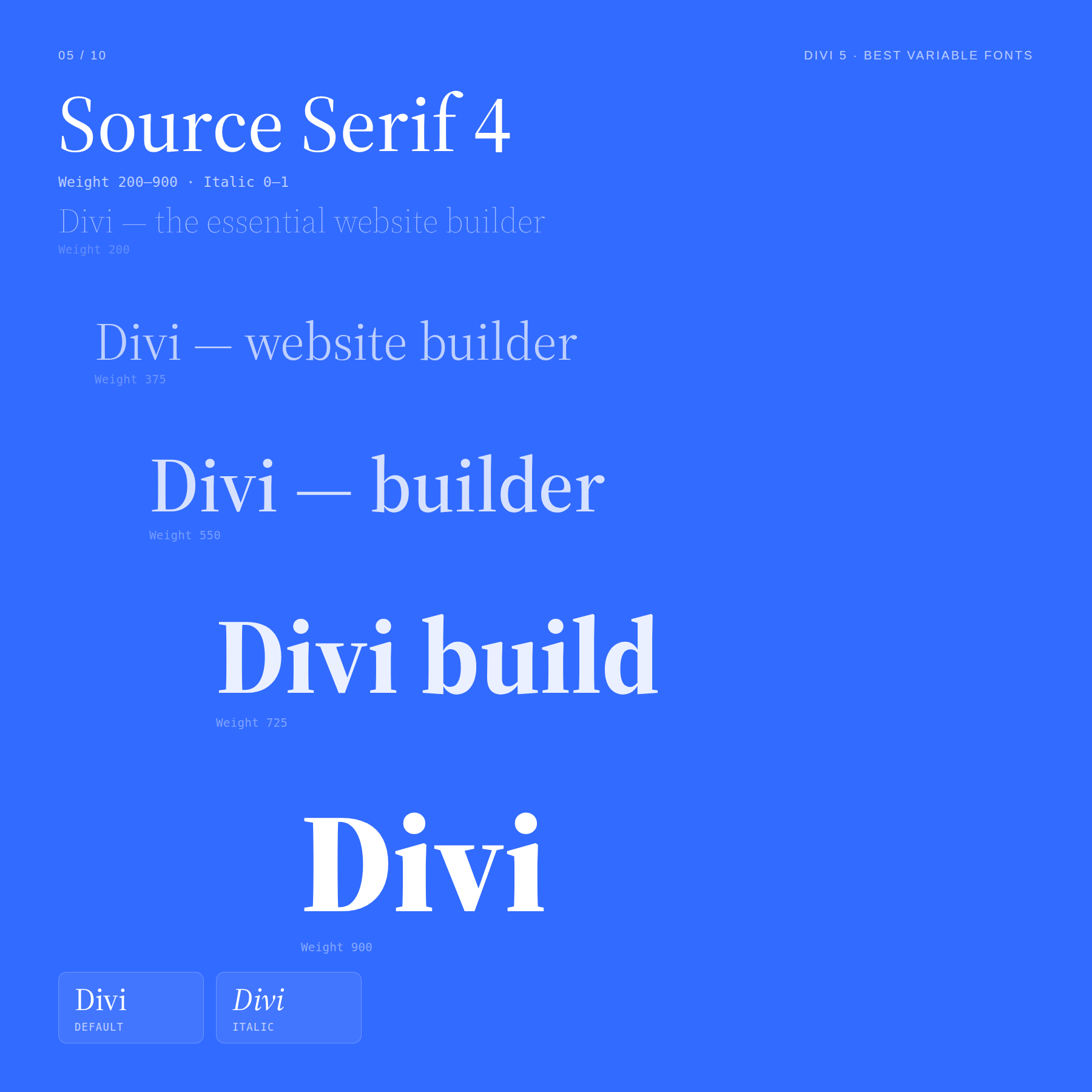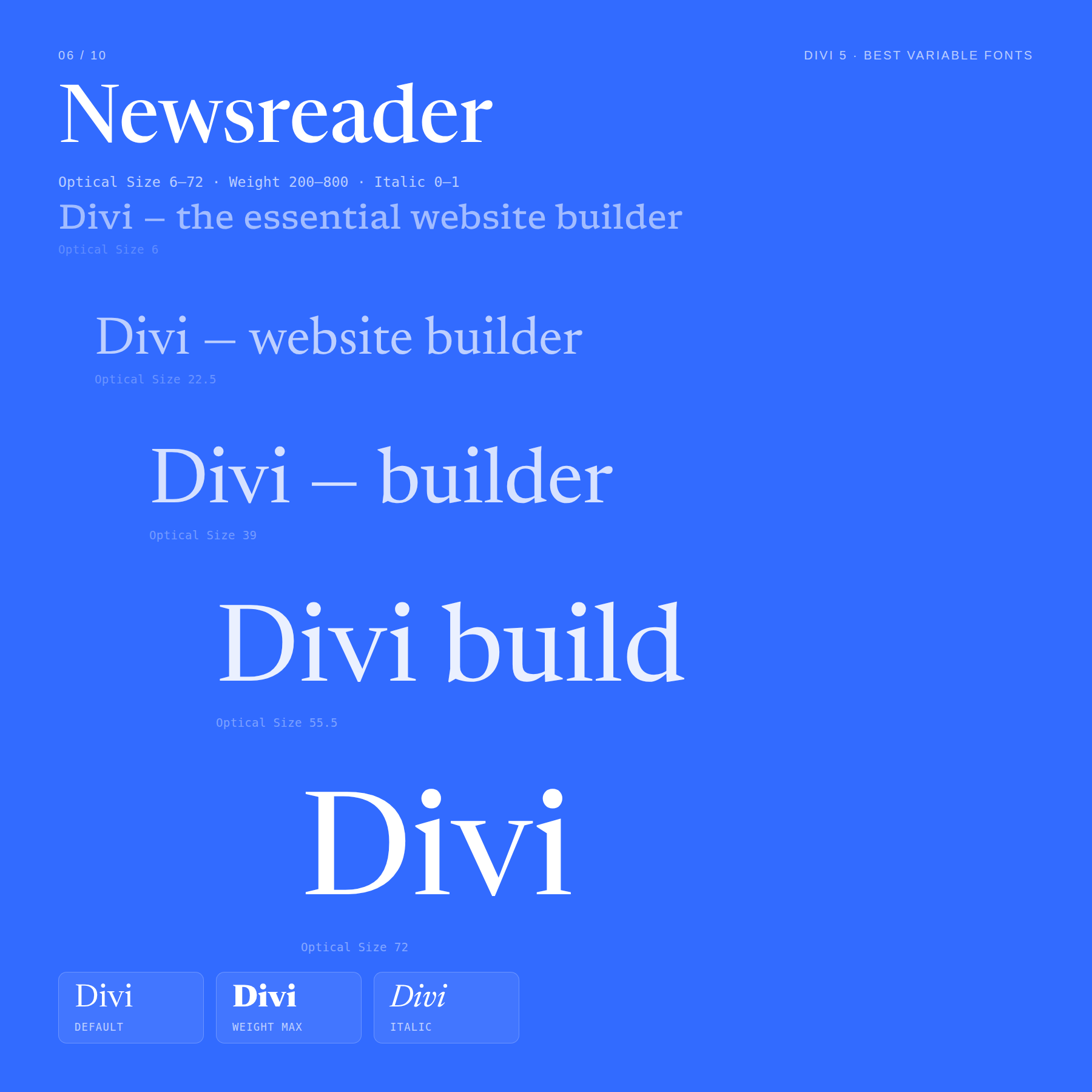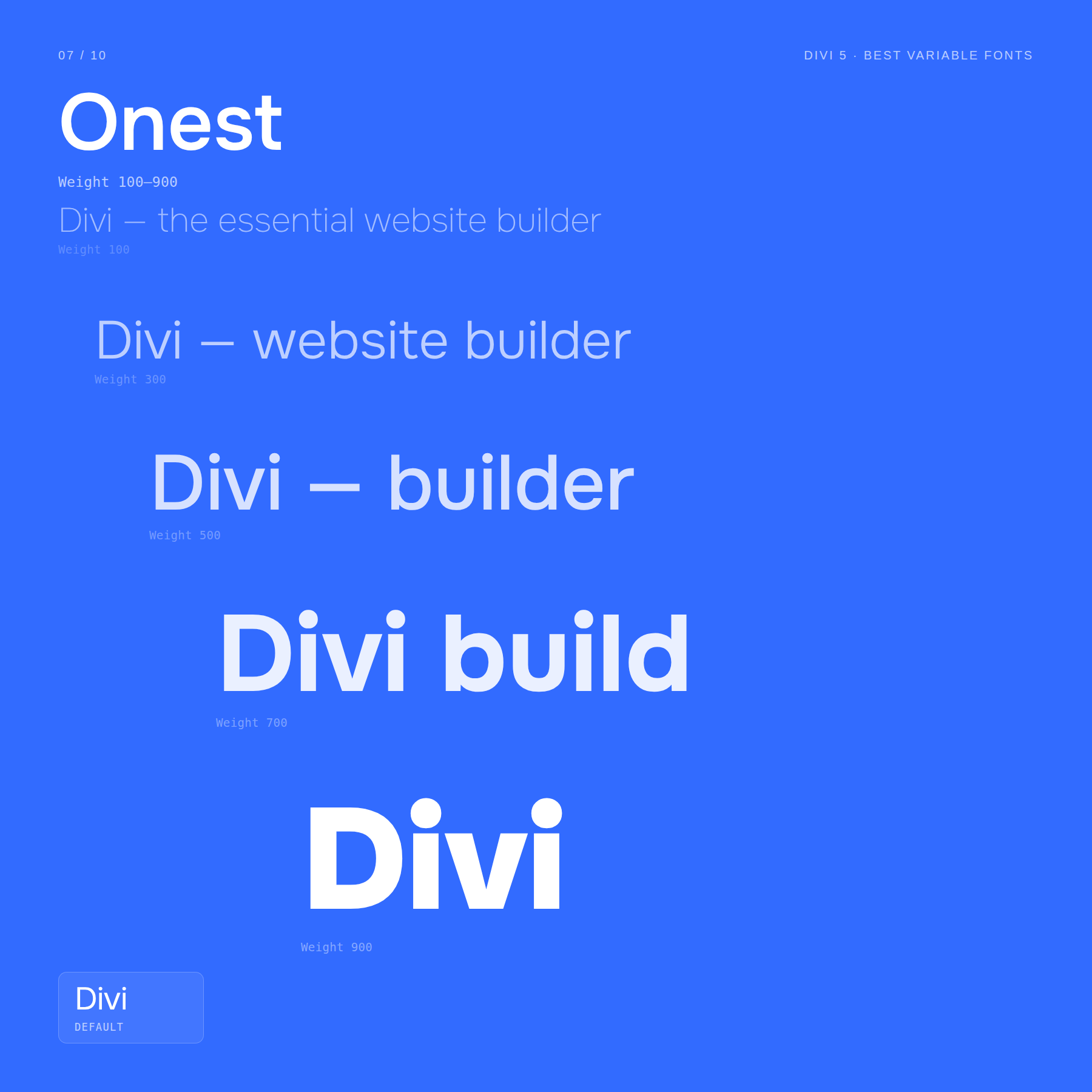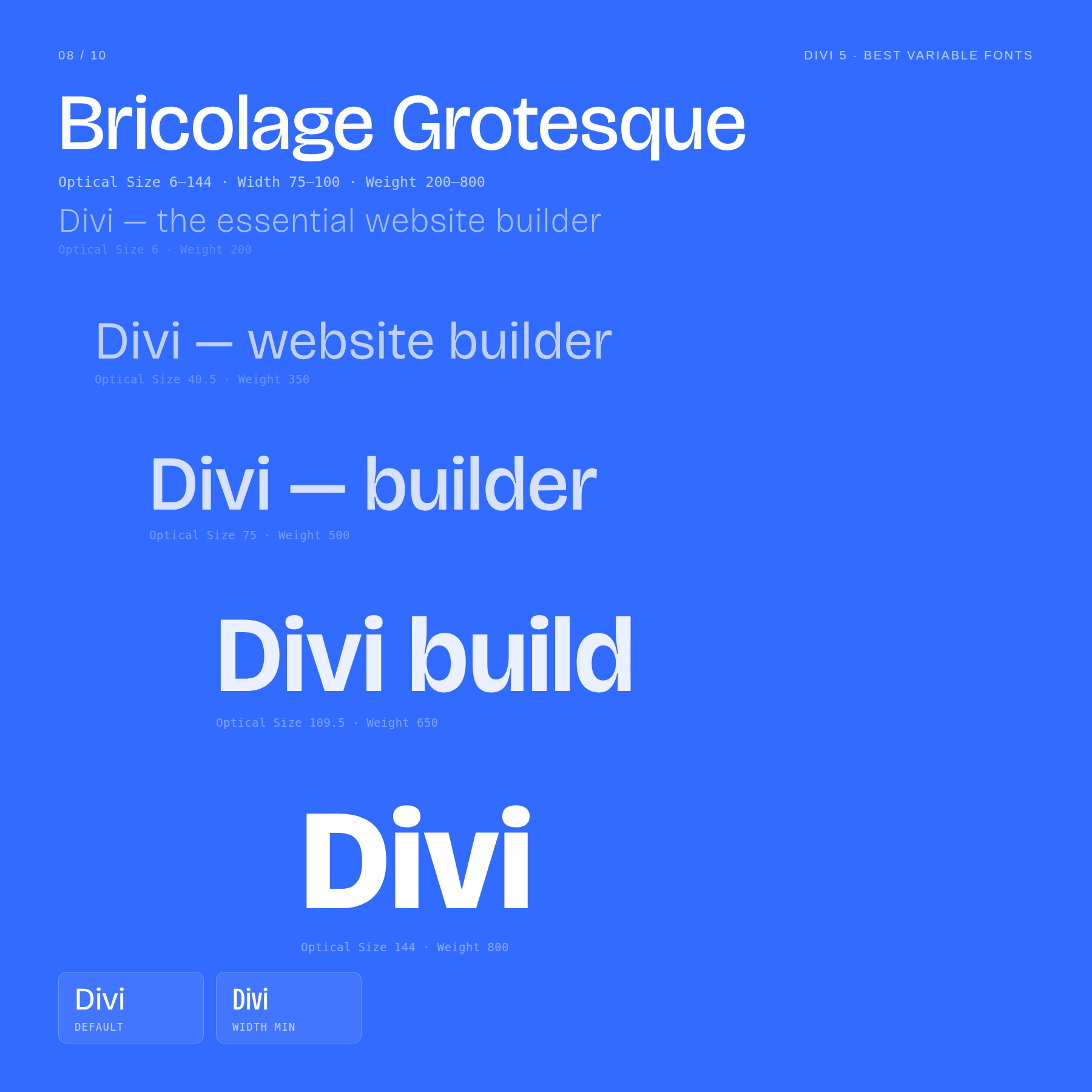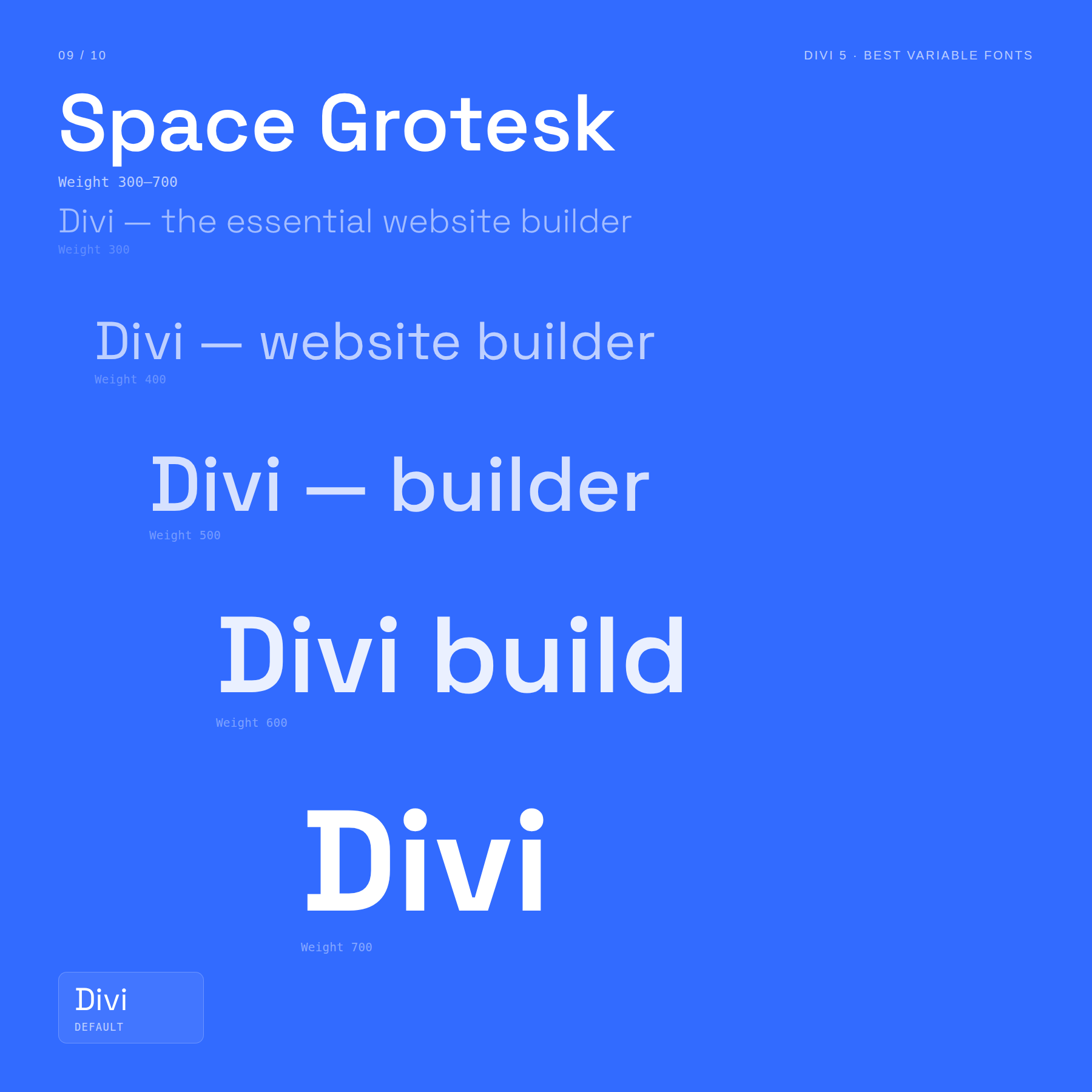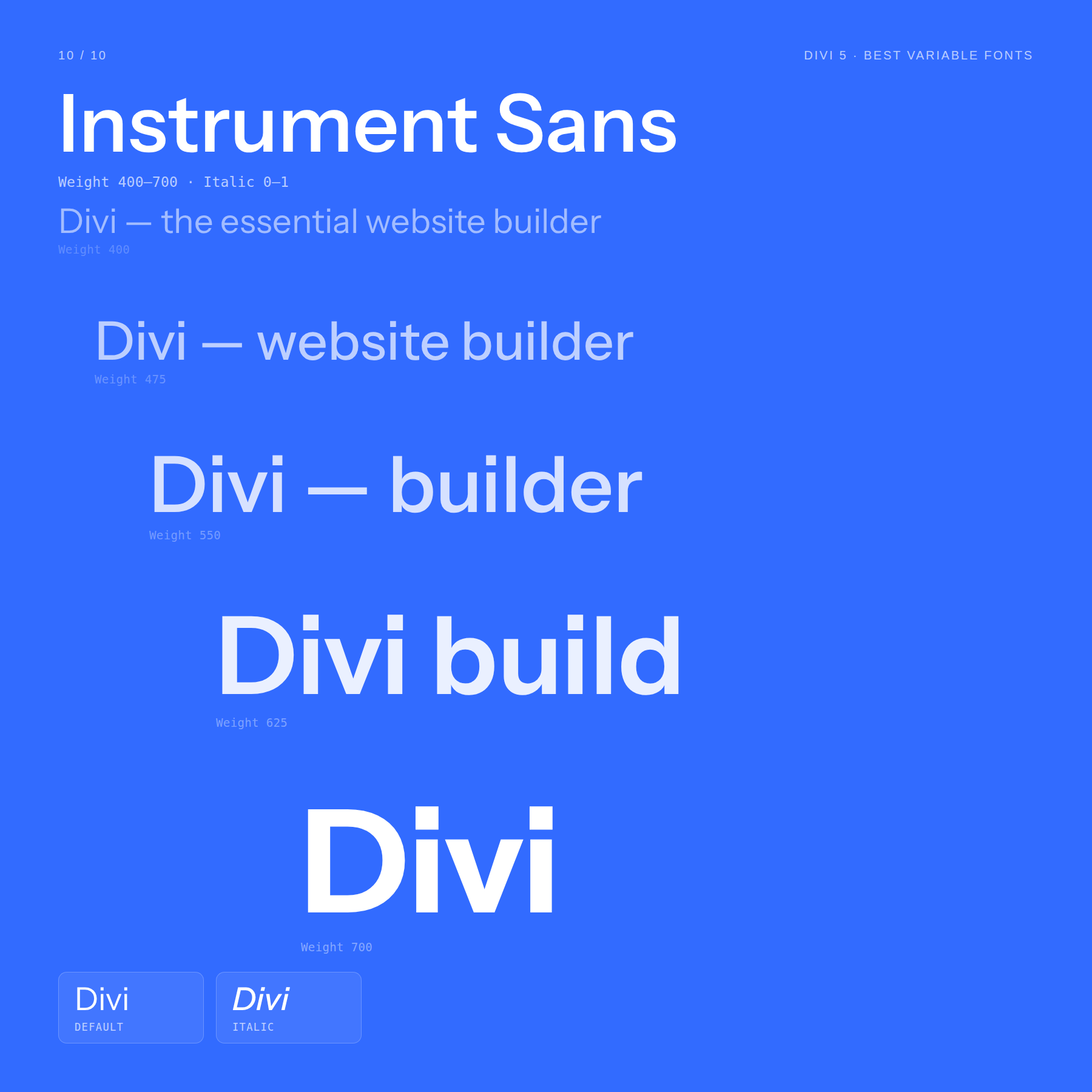
10 Best Variable Fonts For Web Design (Now In Divi 5)
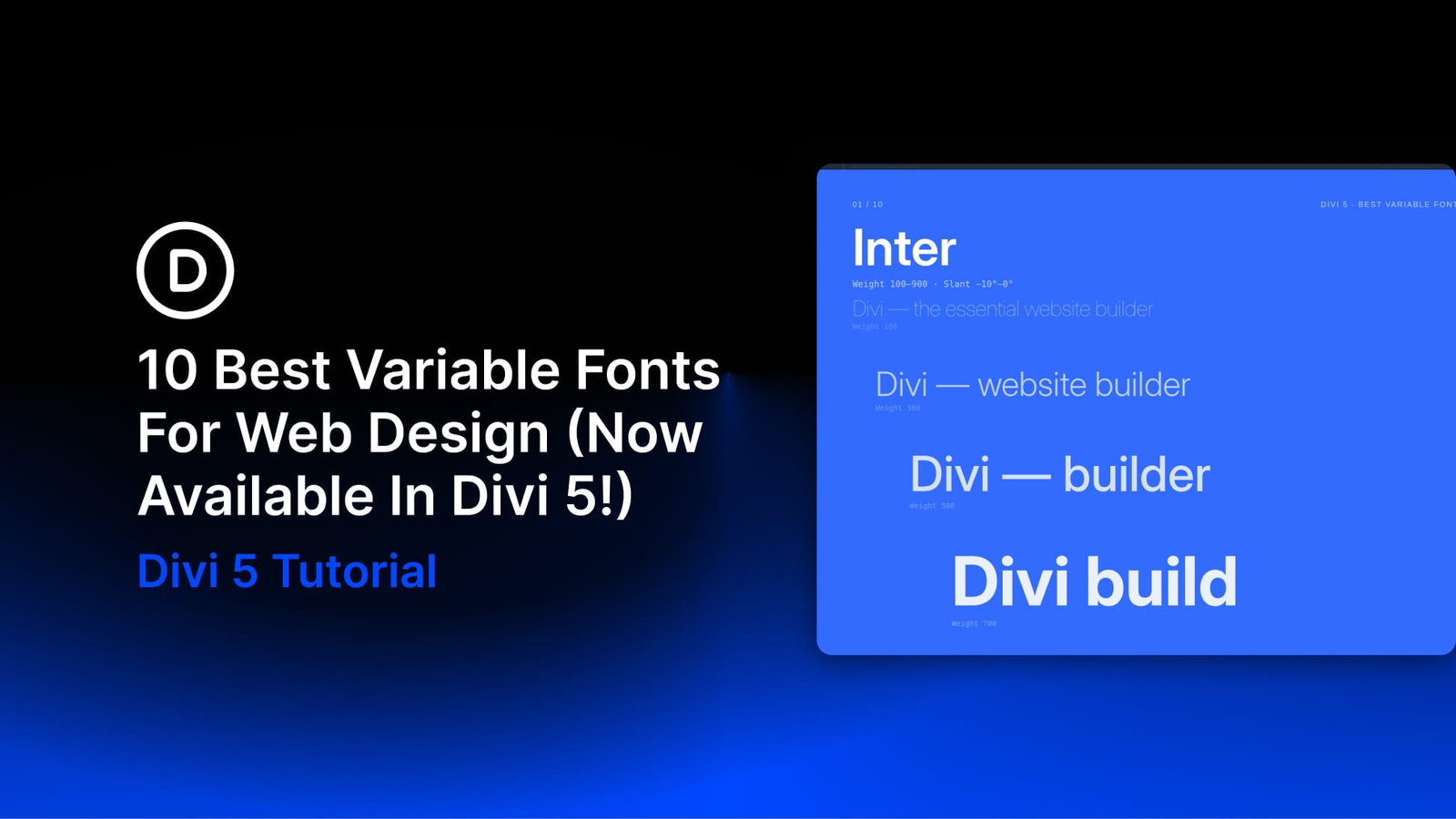
Have you ever used a variable font before? A traditional font family gives you a fixed set of styles: maybe Light, Regular, Medium, and Bold. If you want something between Regular and Bold, you usually need another font file, and if that exact weight does not exist, you compromise.
Variable font support in Divi 5 changes that. A single variable font can contain a range of adjustable design axes, such as weight, width, slant, optical size, and sometimes more experimental controls like casualness, softness, grade, or monospace.
That gives you much more control over how typography feels across a website. Instead of forcing an H2 into 400 or 700, you can use a value like 535 if that balances better with your body text. Instead of swapping fonts for a compressed headline, you can adjust width. Instead of using the same display detail at every size, you can adjust optical size.
Below are ten strong variable fonts you can use in Divi 5, what each one lets you adjust, and where each one fits best in real web design projects.
1. Inter
Inter is one of the most practical variable fonts for modern web design. It was designed for screens, which makes it a strong choice for interfaces, dashboards, SaaS sites, product pages, documentation, and any layout where readability matters at several sizes.
Two axes are especially useful:
- Weight: 100–900
- Slant: A controlled slant axis that lets you create angled text without relying on a fake skew effect.
Inter’s weight range makes it easy to build a full interface system from one family. Use lighter weights for captions, supporting labels, and dense UI text. Use medium weights for body copy and navigation. Use heavier weights for hero headings, feature titles, and callouts.
The Slant axis gives you a secondary voice without switching typefaces. A subtle slant can work well for pull quotes, badges, labels, or short emphasis text when italic styling would feel too traditional.
Best for: SaaS websites, dashboards, product interfaces, documentation, startup websites, and clean marketing pages.
2. Roboto Flex
Roboto Flex is one of the most flexible variable fonts in the Google Fonts library. It is built to show how far variable typography can go, with a wide set of axes that control not only weight and width, but also smaller typographic details.
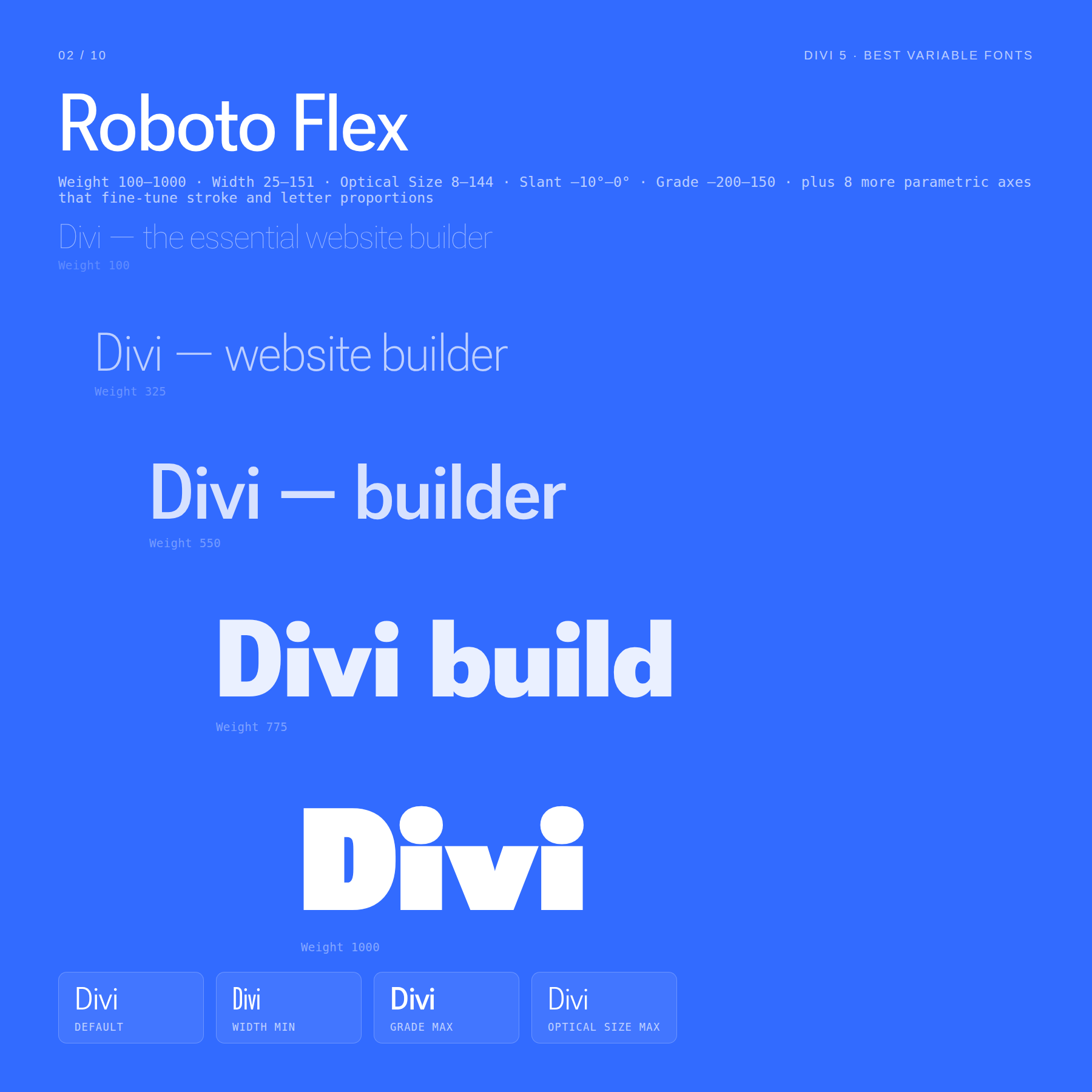
The most useful axes to understand are:
- Weight: 100–1000
- Width: Controls how condensed or extended the letters appear.
- Optical Size: Adjusts the design for smaller or larger text sizes.
- Slant: Adds angled letterforms.
- Grade: Changes visual density without changing the width of the text.
Grade is especially useful for interface design. You can make text feel slightly darker or lighter without changing the space it takes up, which helps when adjusting text for hover states, dark sections, or high-density UI areas.
Roboto Flex also includes parametric axes that fine-tune stroke thickness and letter proportions. You will not need those on every project, but they make the font unusually adaptable when you want one type system to handle many contexts.
Best for: complex design systems, app interfaces, dashboards, technical sites, accessibility-conscious UI work, and layouts that need precise type control.
3. Recursive
Recursive is one of the most interesting fonts on this list because it can shift personality dramatically without leaving the same font family.
It can behave like a clean sans-serif, a monospace code font, or a more casual display typeface depending on how you set its axes.
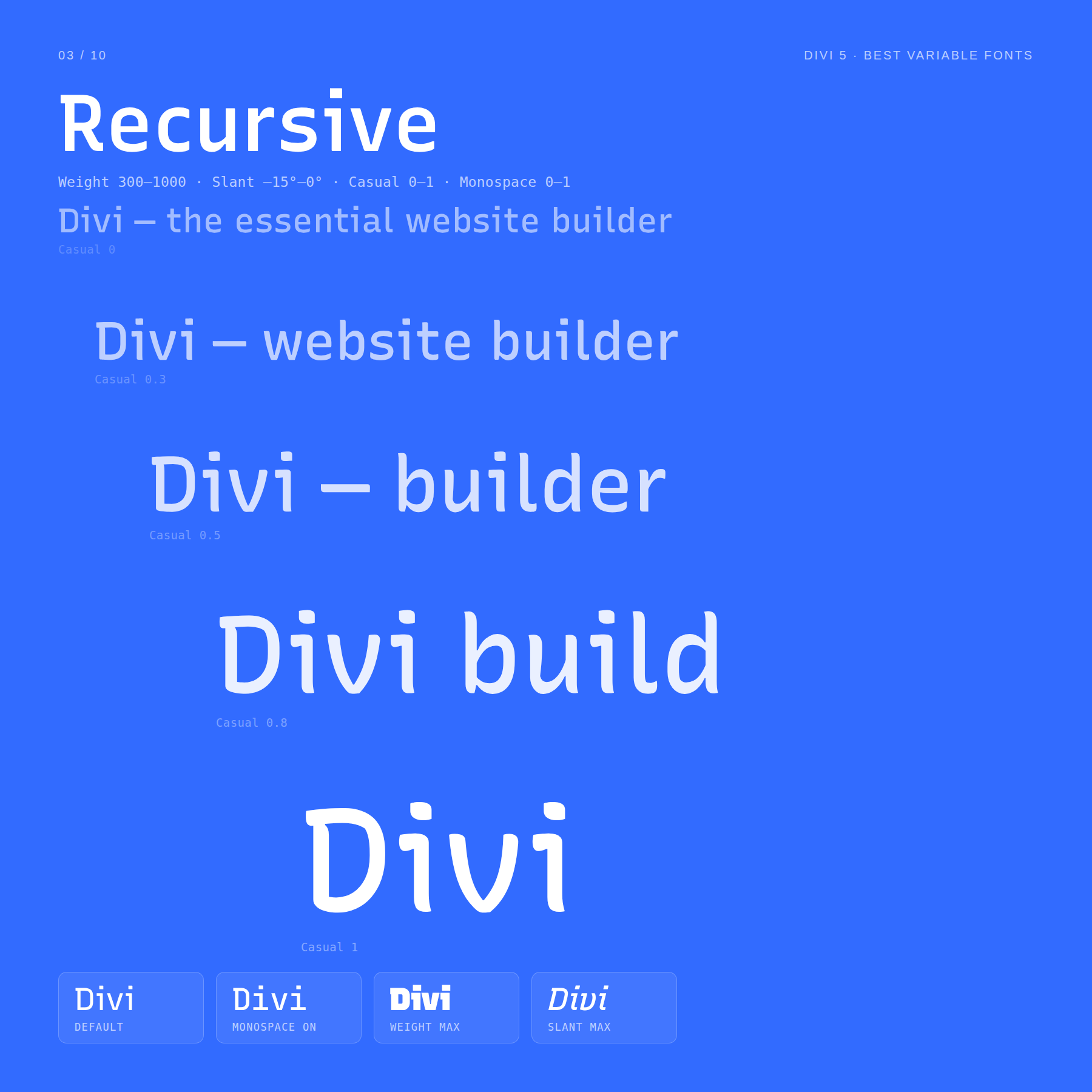
Four axes are especially important:
- Weight: 300–1000
- Slant: Adds angled emphasis.
- Casual: Moves the type from more formal to more expressive.
- Monospace: Moves the type from proportional spacing to fixed-width spacing.
At lower Casual values, Recursive can work as a structured sans-serif for interfaces and technical layouts. Increase Casual, and the same font becomes warmer, looser, and more expressive. Increase Monospace, and it starts to feel appropriate for code snippets, data labels, technical specs, or developer-facing content.
That makes Recursive useful when a site needs both a polished interface voice and a more playful or technical layer without importing separate fonts.
Best for: developer tools, documentation, tech portfolios, creative coding sites, educational platforms, and brands that need both UI clarity and personality.
4. Fraunces
Fraunces is a variable display serif with personality. It feels editorial, vintage, warm, and slightly eccentric, depending on how far you push its axes.
This is not the type of font you choose because you want neutrality. You choose it when a heading needs character.
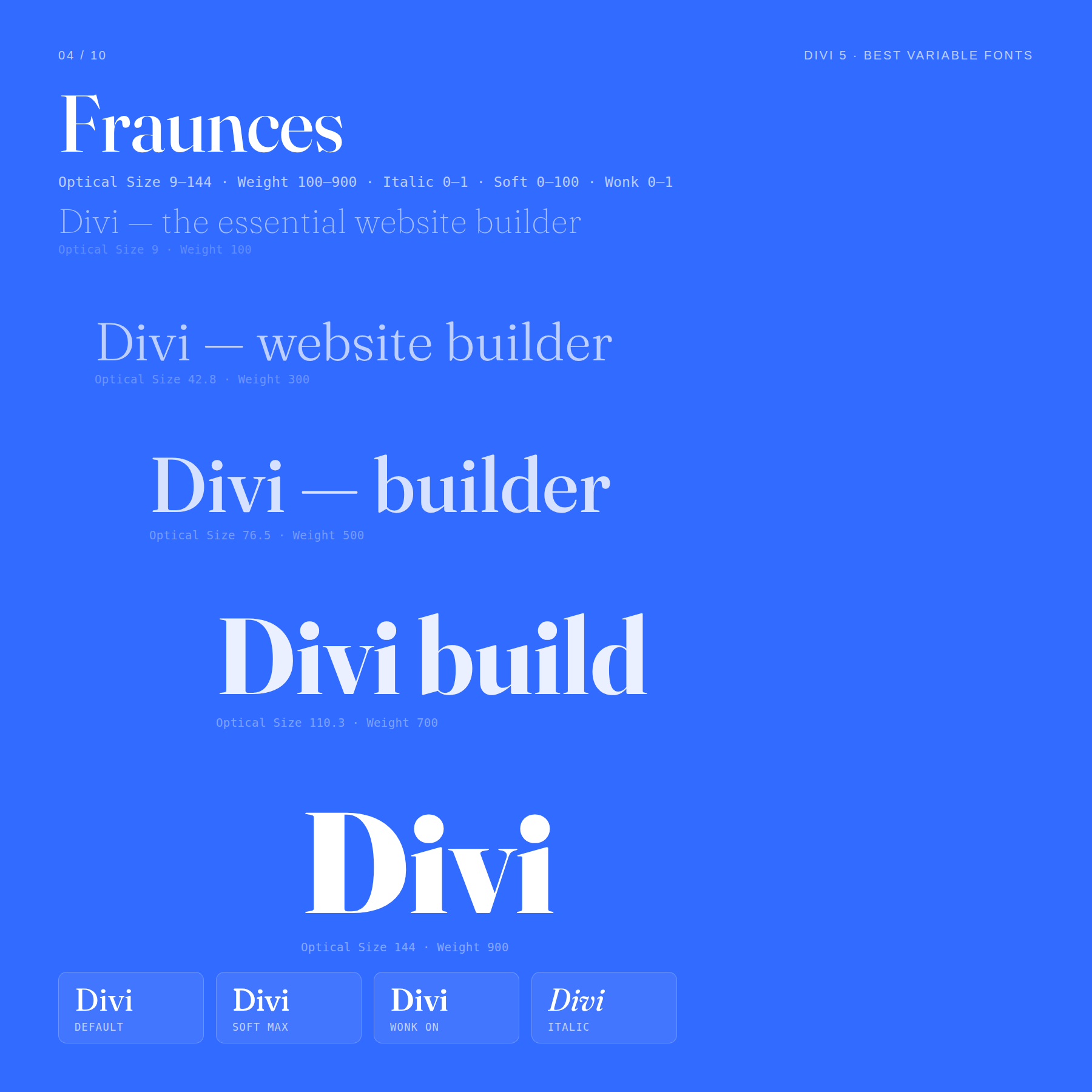
Five axes give Fraunces its range:
- Optical Size: 9–144
- Weight: 100–900
High contrast can exist at any Grade. Grade is a uniform alteration, not a stroke-relationship change.
What is the difference between Casual and Wonk?
Casual shifts a typeface’s overall construction along a formal-to-expressive spectrum — terminals, curve tension, and structure move together, continuously. Wonk does not move continuously. It substitutes specific irregular alternate forms for select characters while the rest of the letterform stays put.
Casual changes the overall mood of the font. Wonk changes specific letters’ shapes.